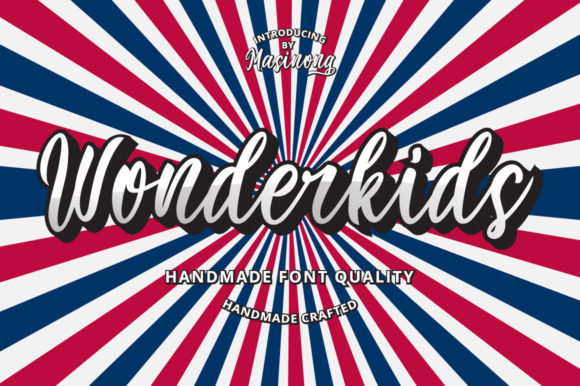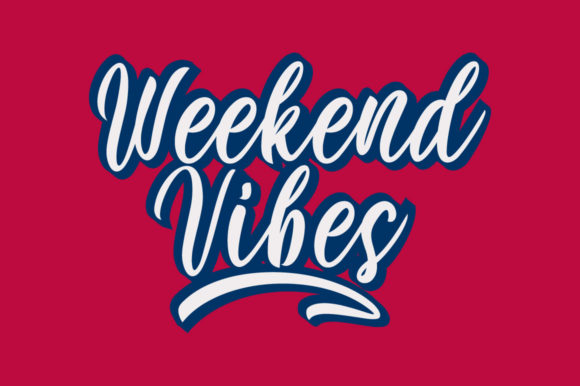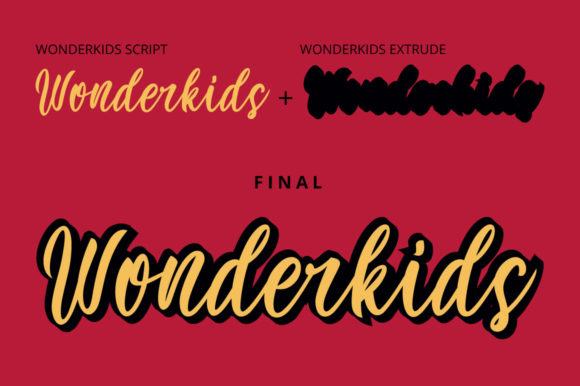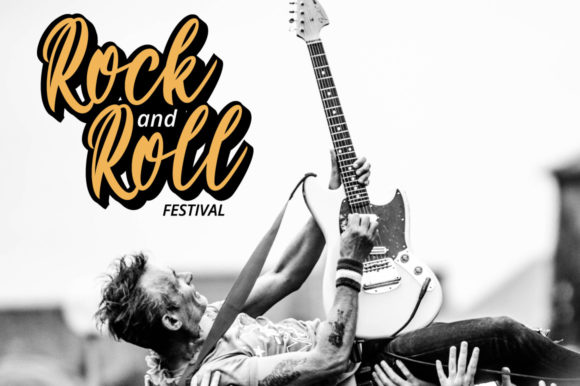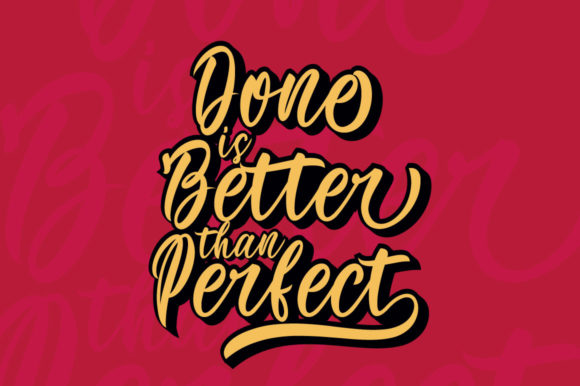
HomeScript FontsWonderkids Font Script Fonts Wonderkids Font FacebookXPinterestWhatsApp Wonderkids Font Poster 2 Wonderkids Font Poster 3 Wonderkids Font Poster 4 Wonderkids Font Poster 5 Wonderkids Font Poster 6 About Wonderkids Font Wonderkids is a script font with a personal touch on every single curve. Fall in love with its playful style! DOWNLOAD ON CREATIVE FABRICAThis font is sold and delivered by Creative Fabrica. Font Canyon may earn a commission if you buy through this link. People also explored Soundmind Font Tyros Font Lovely Card Font Salazur Font Heather Raspberry Bella Canvas 3001 Enchanted Love Bhilisa Font Springlet Font Corleone Font 354 0 TagsWonderkids Font Previous articleDaytone FontNext articleLaggran Font LEAVE A REPLY Cancel reply Comment: Please enter your comment! Name:* Please enter your name here Email:* You have entered an incorrect email address! Please enter your email address here Website: Save my name, email, and website in this browser for the next time I comment. Personal Use Free Deling Personal Use Free Read more about this font Monogram Veg Personal Use Free Read more about this font Squariess Personal Use Free Read more about this font Spaghetti Personal Use Free Read more about this font BLOG How to Install and Use Fonts on Windows, macOS, and Web Projects How to Install and Use Fonts on Windows, macOS, and Web Projects Fonts are a crucial part of design and branding. Whether you’re designing a... Where to Buy American Fonts Online in 2024 Elegant Wedding Invitation Fonts – Handwritten & Script Fonts How to Cut Any Font on Cricut: Convert a Font to SVG (Free)